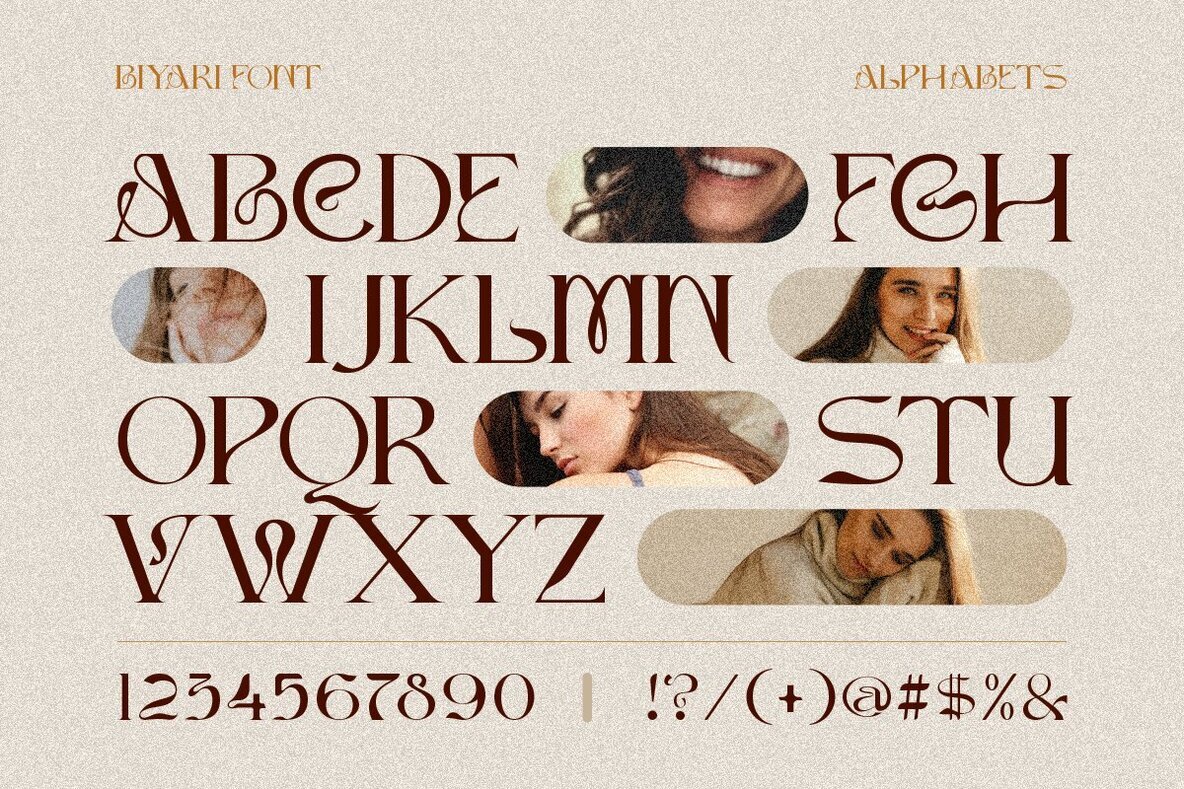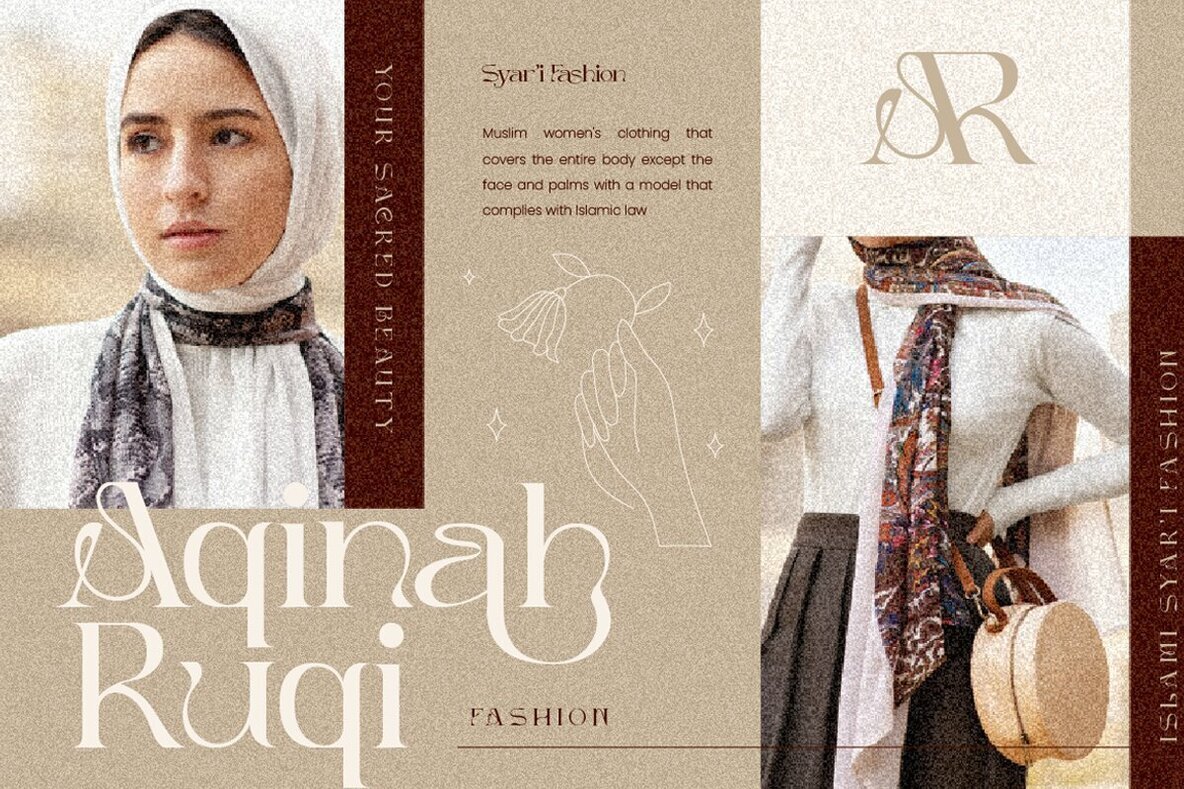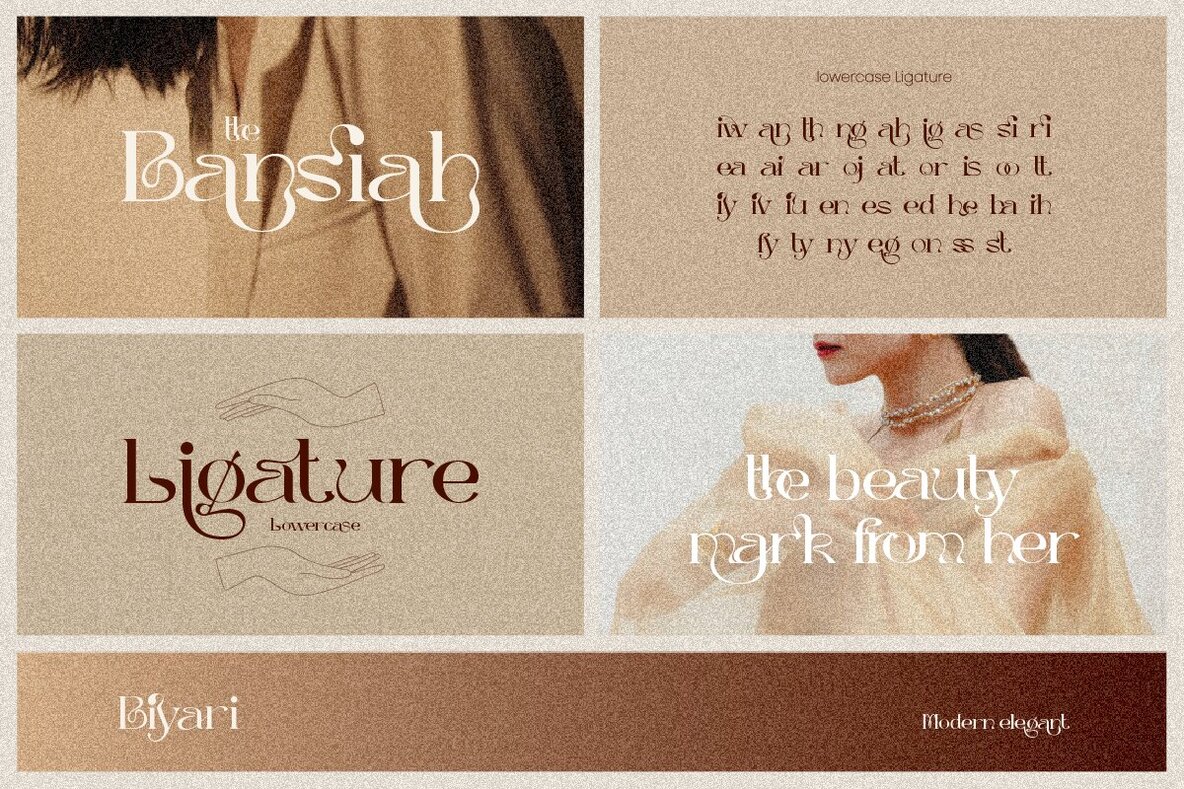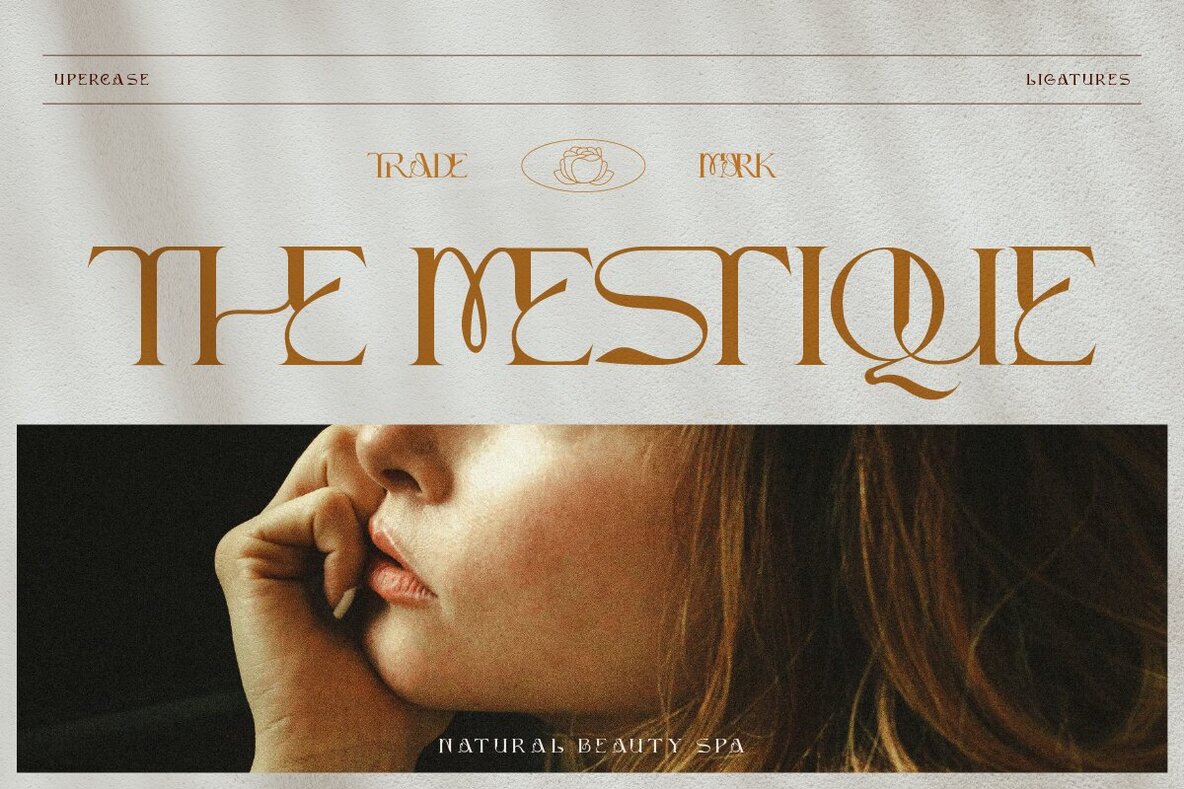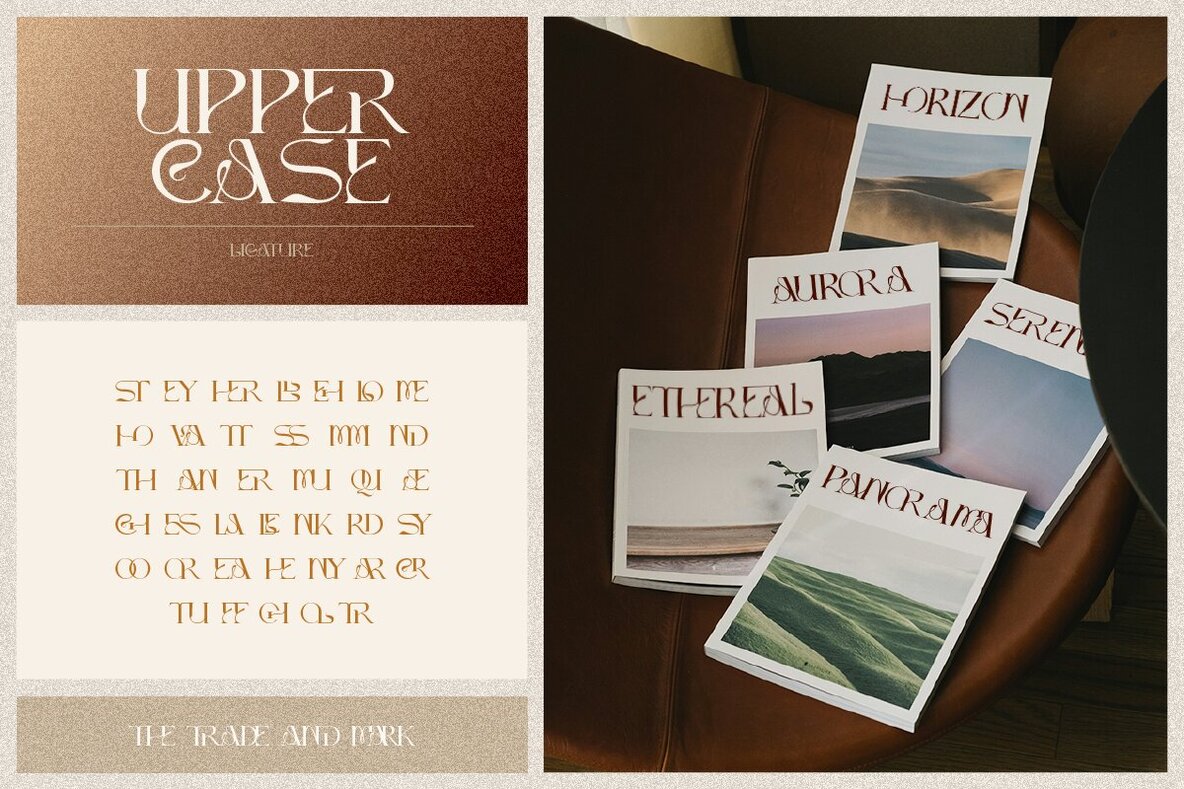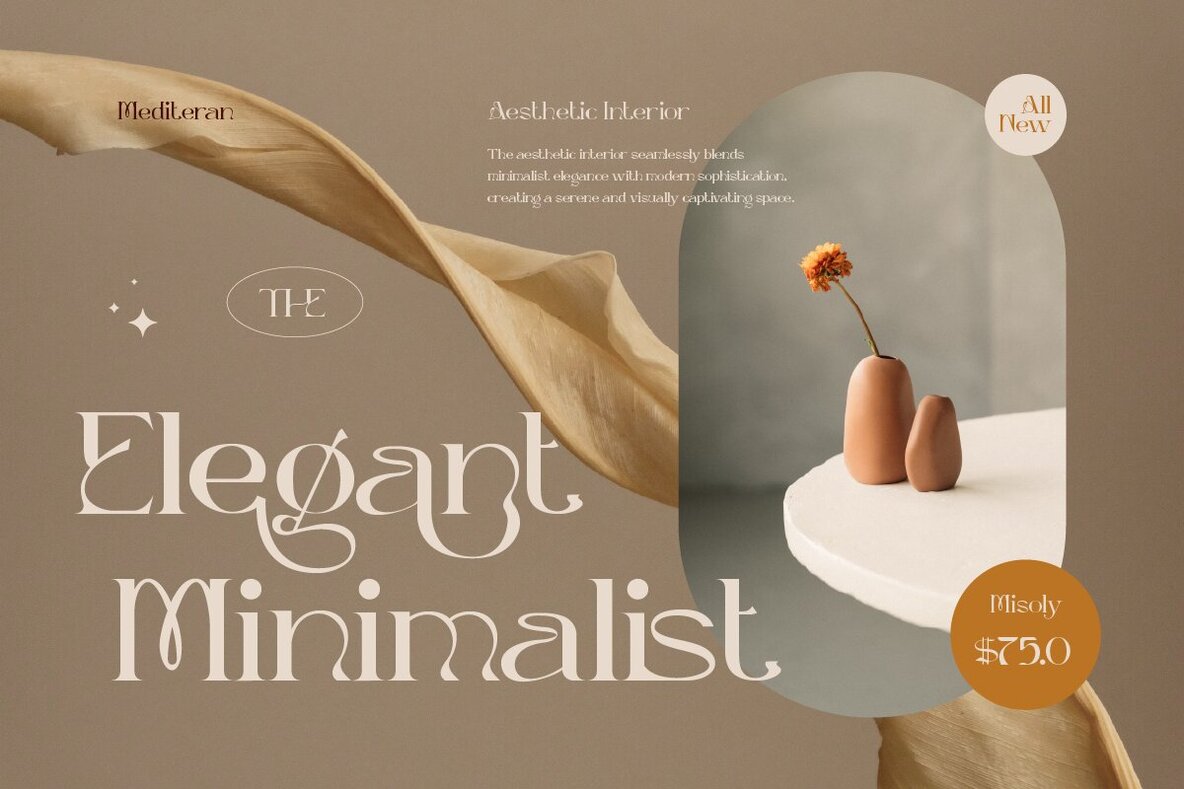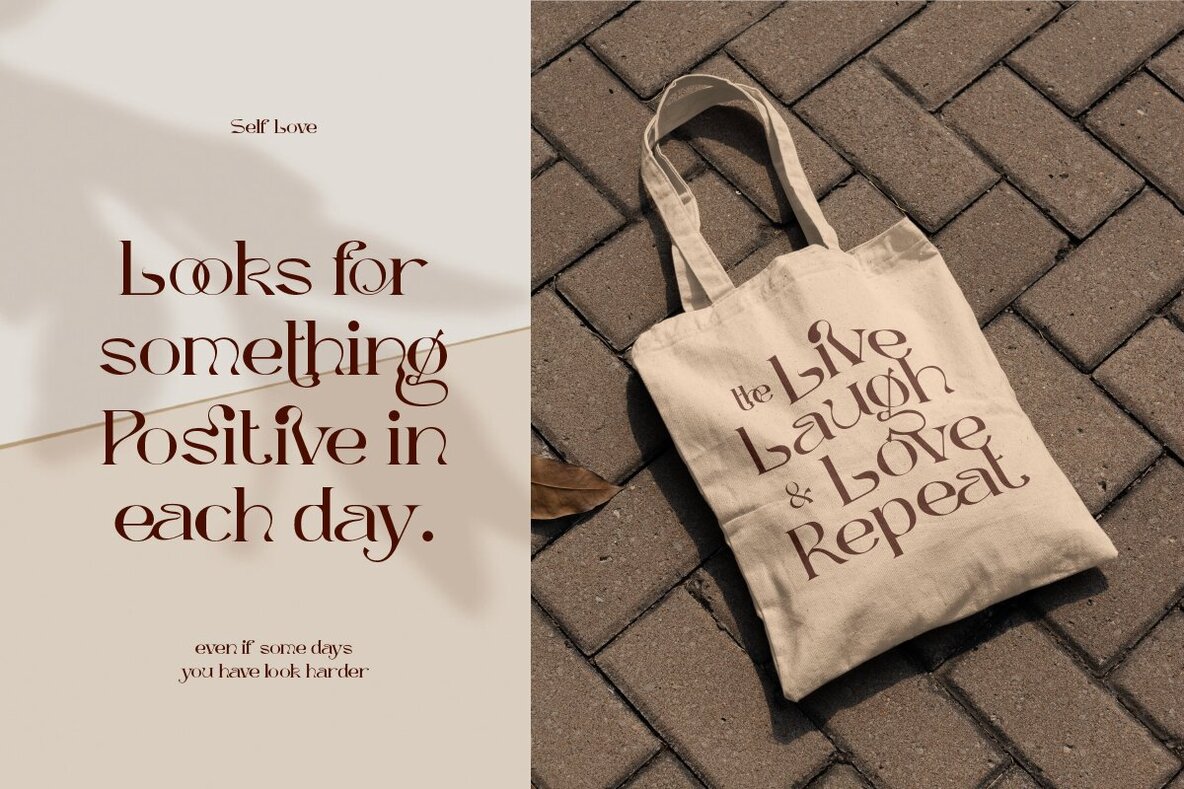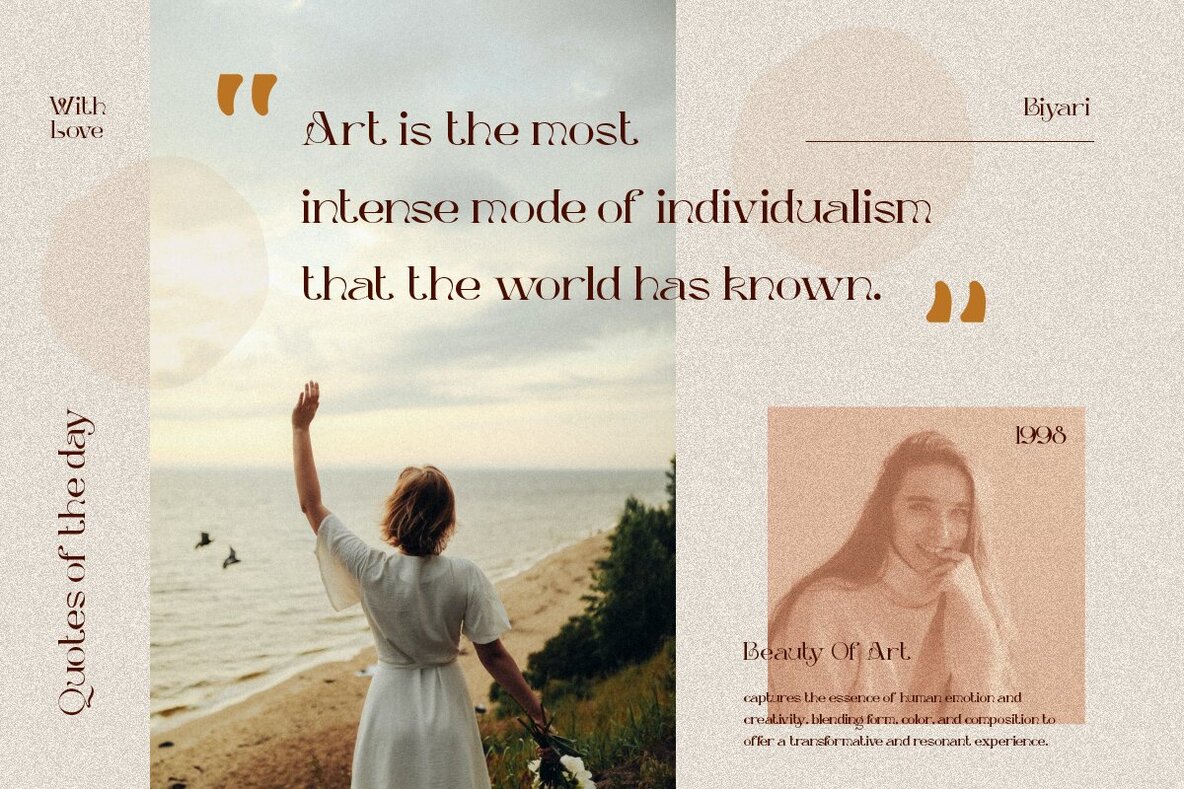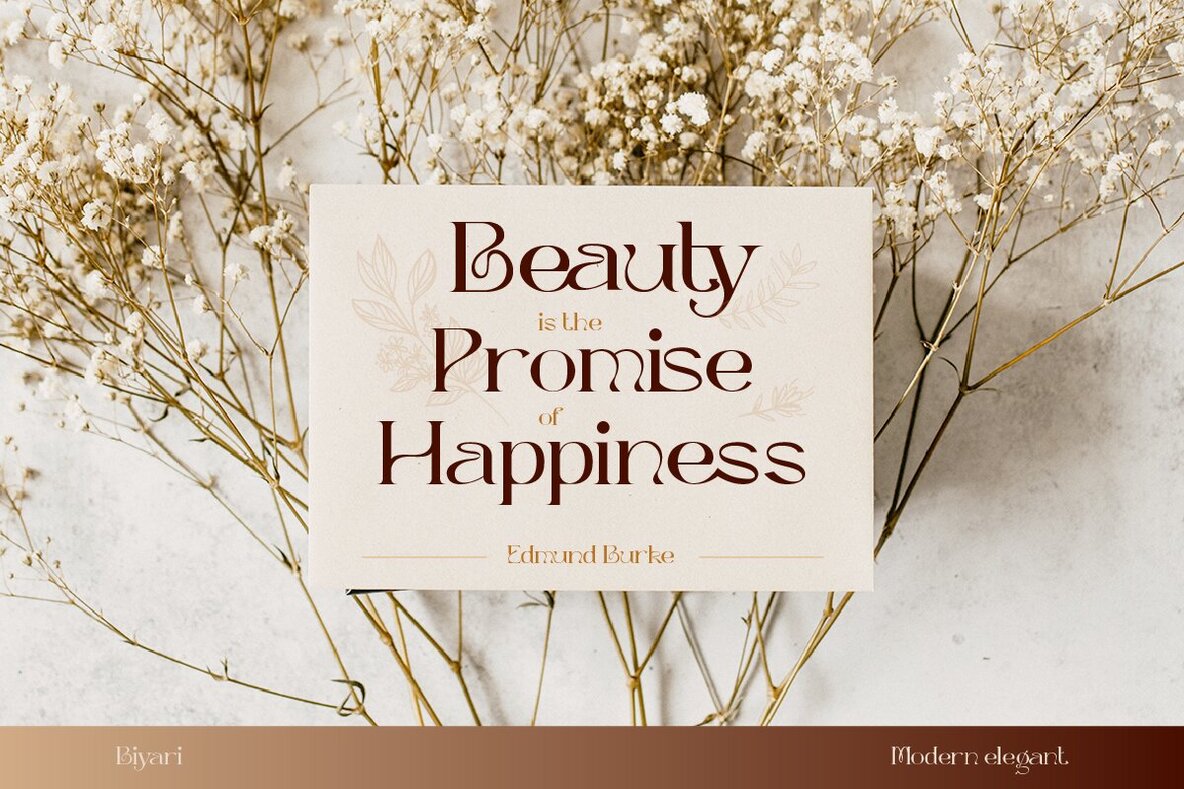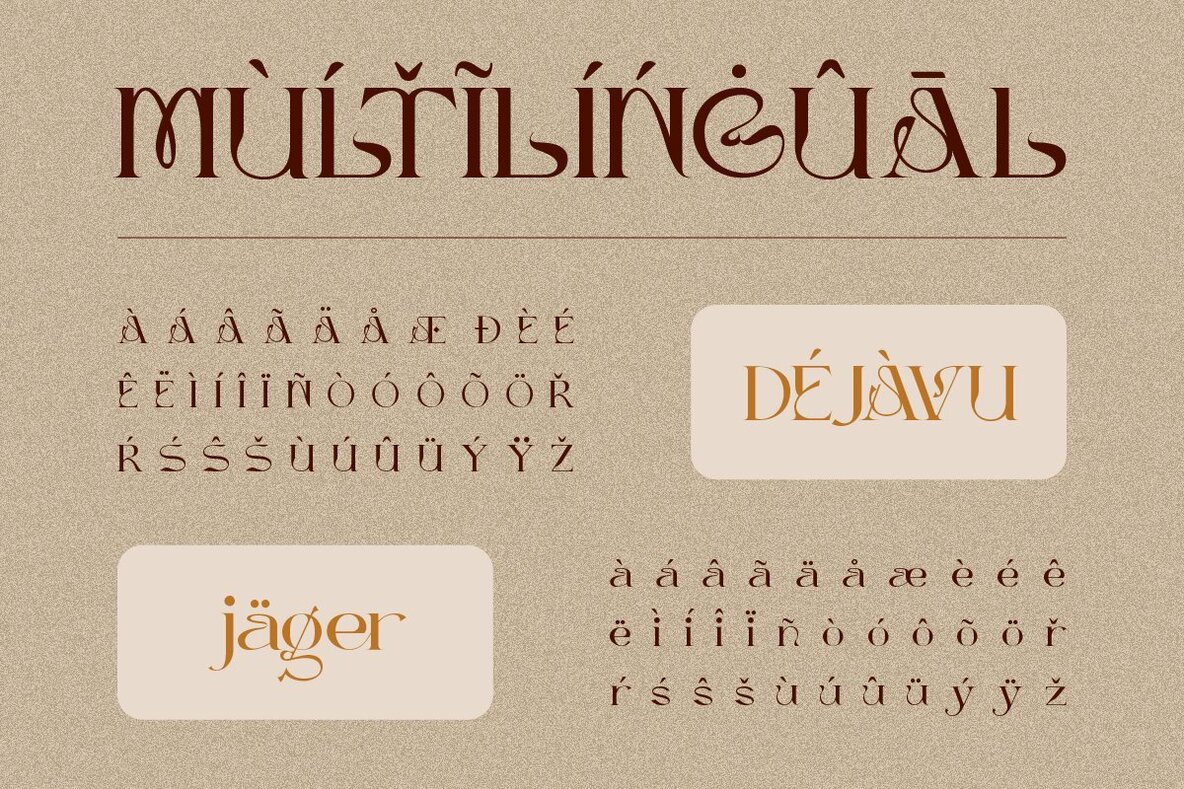
Biyari Font
Biyari Regular
Introducing Biyari, where timeless elegance meet modern design. This font is a modern elegant font combines contemporary design elements with timeless sophistication. Biyari feature the clean lines, balanced proportions, and a refined aesthetic that exudes luxury and class. Biyari perfect for high-end branding, fashion magazines, wedding invitations, and any project that requires a touch of elegance and modernity. Features: